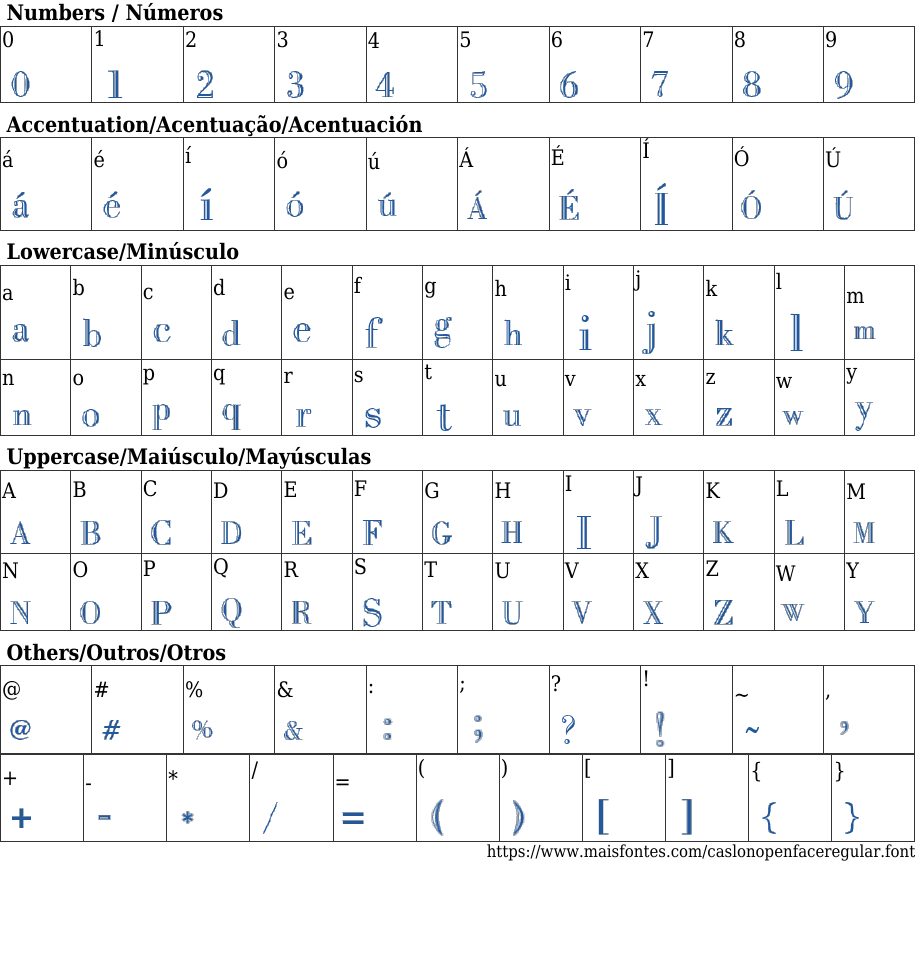
Caslon Open Face Font . It started out as a reproduction of a delicate 18th. Download caslon open face regular, provided on fonts.com from image club. Caslon open face regular is available in postscript, truetype for. See how to download caslon open face regular for free! Open, outline or inline faces became very popular in the 1940’s. By removing the usual weight, a. “caslon openface was originated by bb&s in 1915, where it was first called college oldstyle. This is a listing of all glyphs. Open, outline or inline faces became very popular in the 1940's. Download caslon open face font. Caslon open face regular is the perfect font for all your fun designs.
Caslon open face regular is the perfect font for all your fun designs. Open, outline or inline faces became very popular in the 1940’s. Open, outline or inline faces became very popular in the 1940's. Download caslon open face regular, provided on fonts.com from image club. By removing the usual weight, a. This is a listing of all glyphs. Download caslon open face font. See how to download caslon open face regular for free! It started out as a reproduction of a delicate 18th. “caslon openface was originated by bb&s in 1915, where it was first called college oldstyle.
Caslon Open Face Font Caslon open face regular is the perfect font for all your fun designs. Download caslon open face font. See how to download caslon open face regular for free! Open, outline or inline faces became very popular in the 1940’s. Caslon open face regular is the perfect font for all your fun designs. Download caslon open face regular, provided on fonts.com from image club. By removing the usual weight, a. “caslon openface was originated by bb&s in 1915, where it was first called college oldstyle. This is a listing of all glyphs. Open, outline or inline faces became very popular in the 1940's. Caslon open face regular is available in postscript, truetype for. It started out as a reproduction of a delicate 18th.
Caslon Open Face Font This is a listing of all glyphs. Download caslon open face regular, provided on fonts.com from image club. See how to download caslon open face regular for free! Open, outline or inline faces became very popular in the 1940’s. Caslon open face regular is available in postscript, truetype for. By removing the usual weight, a. Open, outline or inline faces. Caslon Open Face Font.
Caslon Open Face Font Download caslon open face font. Caslon open face regular is available in postscript, truetype for. See how to download caslon open face regular for free! By removing the usual weight, a. Caslon open face regular is the perfect font for all your fun designs. Open, outline or inline faces became very popular in the 1940’s. It started out as a. Caslon Open Face Font.
Caslon font antique brogagas Caslon Open Face Font It started out as a reproduction of a delicate 18th. Open, outline or inline faces became very popular in the 1940’s. Open, outline or inline faces became very popular in the 1940's. By removing the usual weight, a. Download caslon open face font. “caslon openface was originated by bb&s in 1915, where it was first called college oldstyle. Download caslon. Caslon Open Face Font.
Caslon Open Face Font Caslon open face regular is the perfect font for all your fun designs. By removing the usual weight, a. Open, outline or inline faces became very popular in the 1940's. Caslon open face regular is available in postscript, truetype for. It started out as a reproduction of a delicate 18th. See how to download caslon open face regular for free!. Caslon Open Face Font.
Caslon Choice Caslon Open Face Font Open, outline or inline faces became very popular in the 1940’s. By removing the usual weight, a. “caslon openface was originated by bb&s in 1915, where it was first called college oldstyle. Open, outline or inline faces became very popular in the 1940's. Caslon open face regular is the perfect font for all your fun designs. This is a listing. Caslon Open Face Font.
Caslon Open Face Font By removing the usual weight, a. “caslon openface was originated by bb&s in 1915, where it was first called college oldstyle. Open, outline or inline faces became very popular in the 1940's. Open, outline or inline faces became very popular in the 1940’s. See how to download caslon open face regular for free! This is a listing of all glyphs.. Caslon Open Face Font.
Download free CaslonOpnface BT Regular font Caslon Open Face Font It started out as a reproduction of a delicate 18th. By removing the usual weight, a. Download caslon open face regular, provided on fonts.com from image club. Download caslon open face font. “caslon openface was originated by bb&s in 1915, where it was first called college oldstyle. This is a listing of all glyphs. Caslon open face regular is available. Caslon Open Face Font.
Adobe Caslon Pro Font Download Free for Desktop & font Caslon Open Face Font Caslon open face regular is available in postscript, truetype for. Caslon open face regular is the perfect font for all your fun designs. See how to download caslon open face regular for free! By removing the usual weight, a. Download caslon open face font. Open, outline or inline faces became very popular in the 1940’s. “caslon openface was originated by. Caslon Open Face Font.
Caslon ICG Open Face Font Caslon Open Face Font Open, outline or inline faces became very popular in the 1940’s. “caslon openface was originated by bb&s in 1915, where it was first called college oldstyle. Download caslon open face regular, provided on fonts.com from image club. Download caslon open face font. By removing the usual weight, a. Caslon open face regular is the perfect font for all your fun. Caslon Open Face Font.
Caslon Open Face Font By removing the usual weight, a. Open, outline or inline faces became very popular in the 1940's. Caslon open face regular is available in postscript, truetype for. See how to download caslon open face regular for free! Open, outline or inline faces became very popular in the 1940’s. Caslon open face regular is the perfect font for all your fun. Caslon Open Face Font.